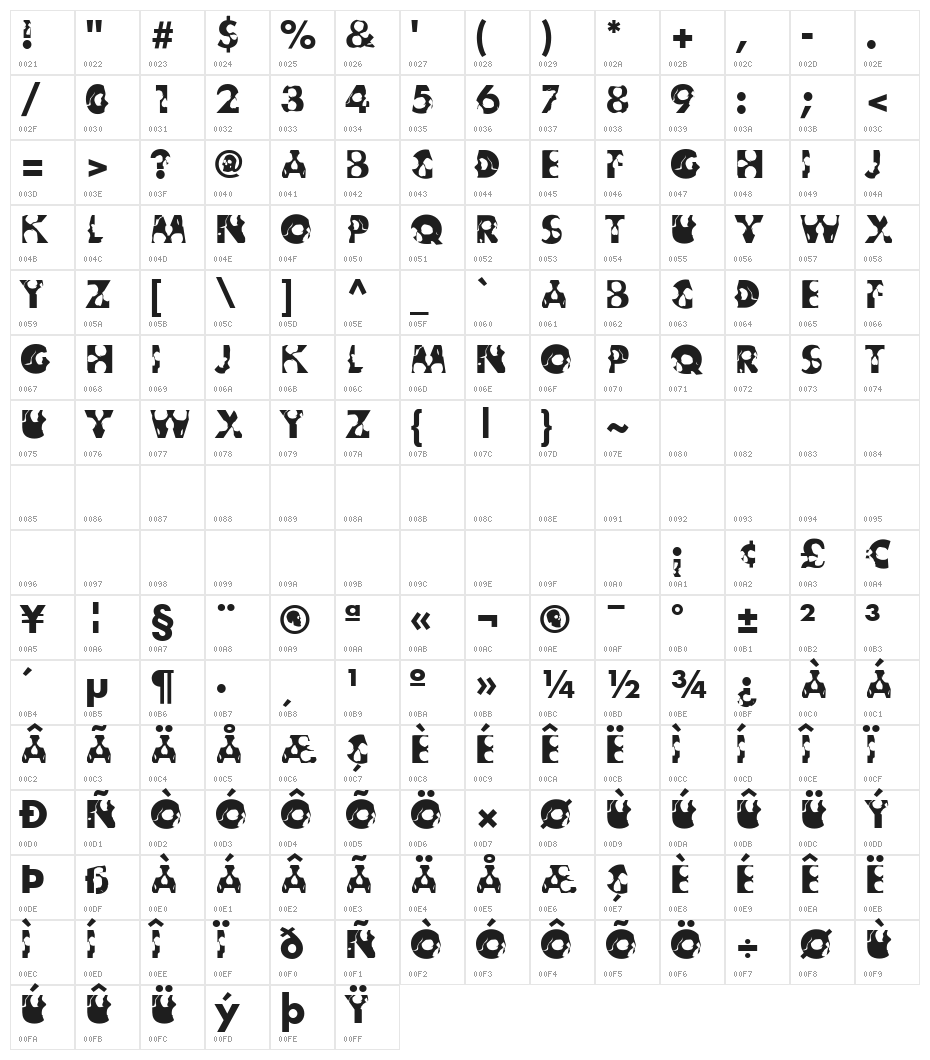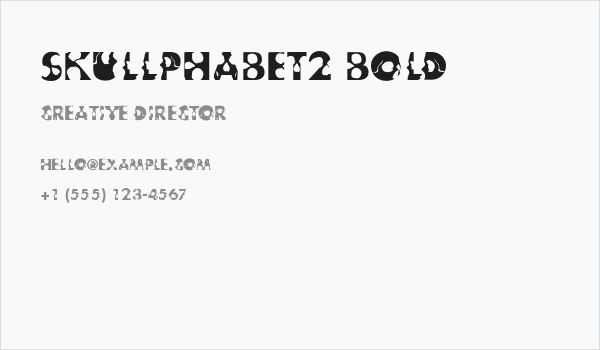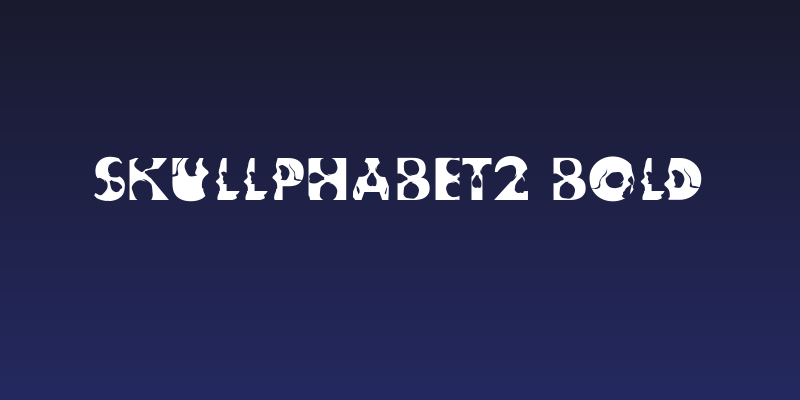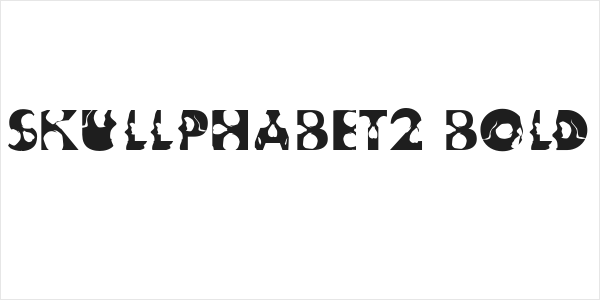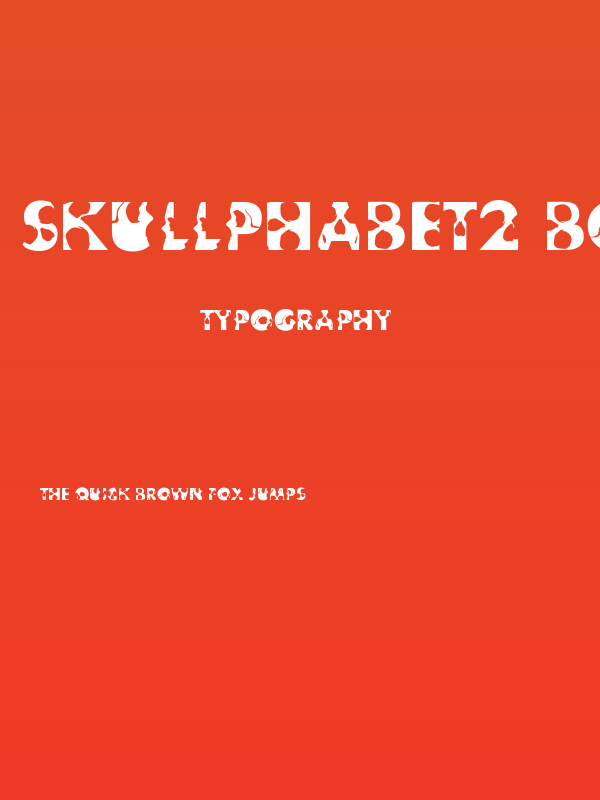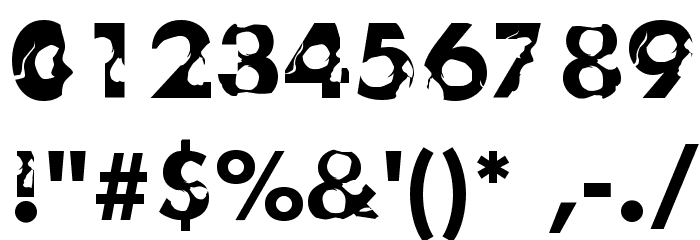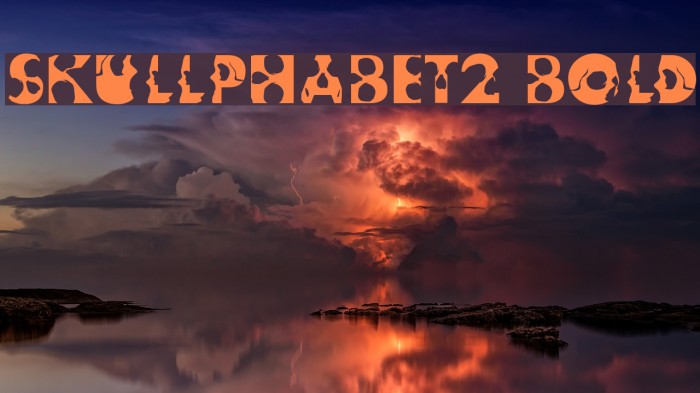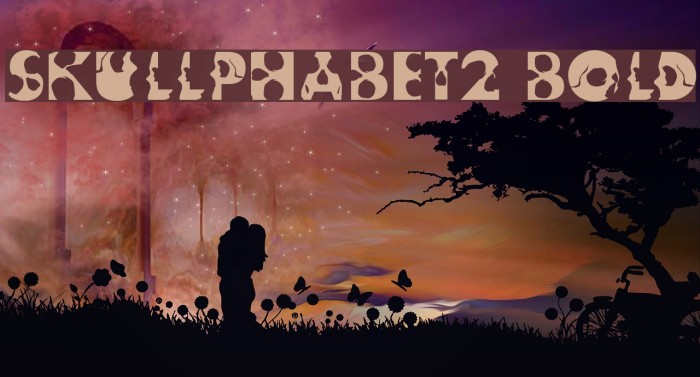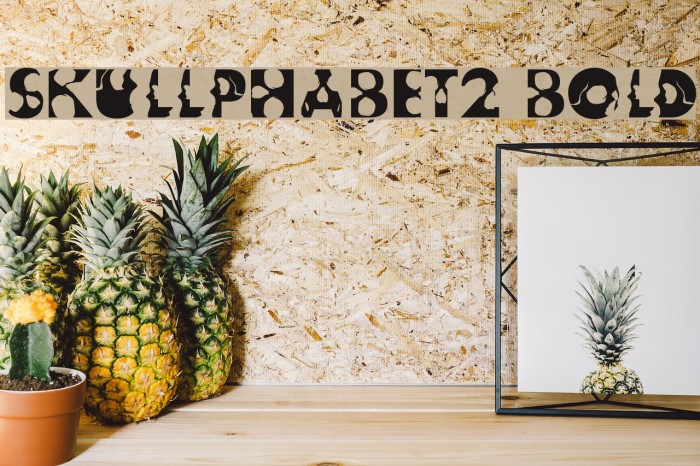
Skullphabet2 Bold Font
Skullphabet2 Bold Description
This font features a bold and striking design with a unique, decorative style. Each character is creatively integrated with skull motifs, giving it a distinct and edgy appearance. The letters are bold with a strong presence, making them ideal for attention-grabbing designs. The font maintains a consistent weight throughout, with medium contrast in stroke thickness. The characters are evenly spaced, ensuring readability despite their intricate design. This font is perfect for projects that require a bold statement and a touch of gothic or horror-themed aesthetics.
| Proposed Projects | Perfect for Halloween-themed posters, horror movie titles, edgy branding, and merchandise designs. |